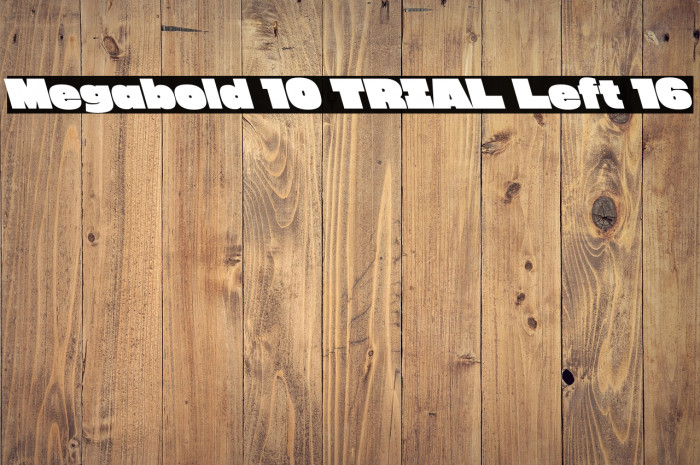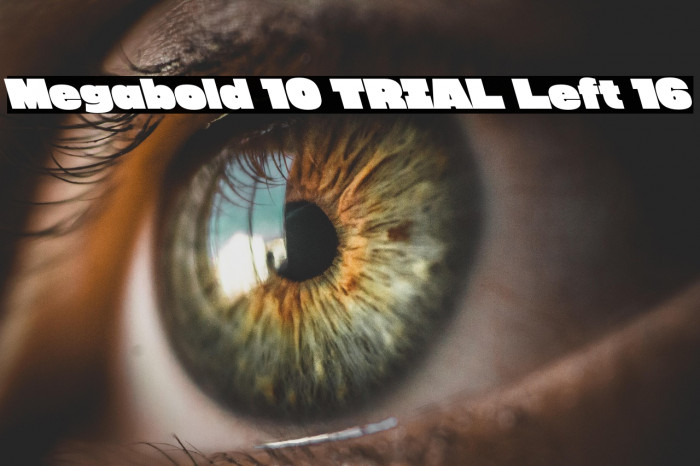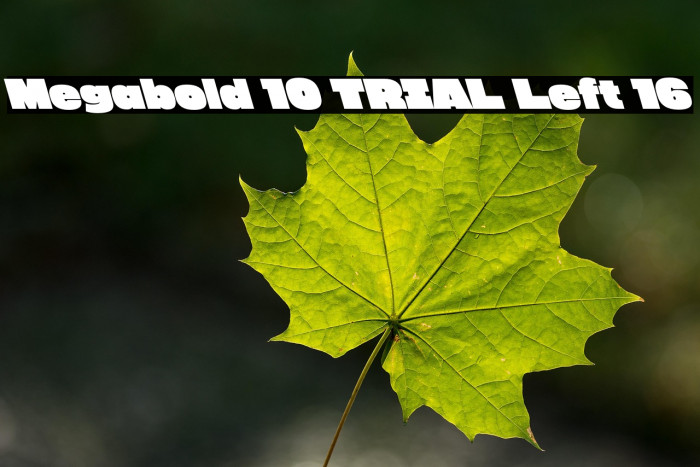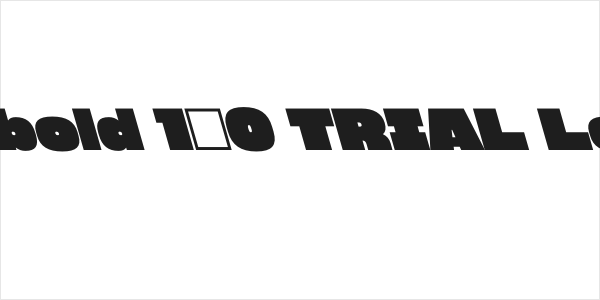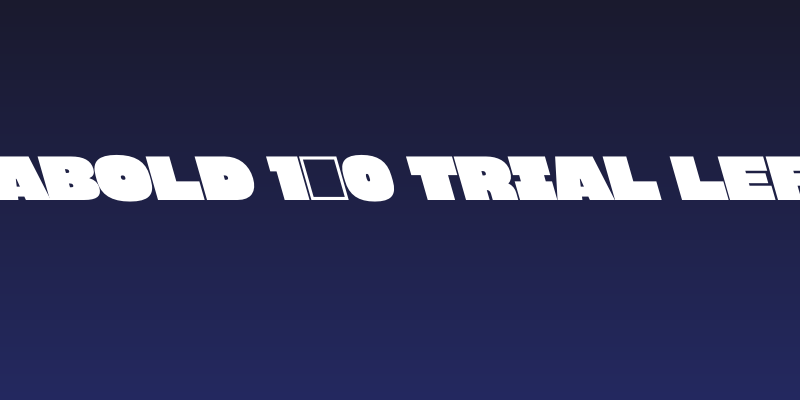
Megabold 1.0 TRIAL Left 16 Font
Megabold 1.0 TRIAL Left 16 Description
This font features a bold and impactful design with a strong presence. The characters are heavily weighted, providing a sense of stability and strength. The uppercase and lowercase letters are consistent in style, with a slight slant that adds a dynamic feel. The numbers are equally bold, maintaining the overall aesthetic. The special characters are designed to match the robust style of the alphabet, ensuring uniformity across all elements. This font is ideal for projects that require a commanding and assertive typeface.
| Proposed Projects | Ideal for headlines, posters, branding, and any design requiring a bold statement. |